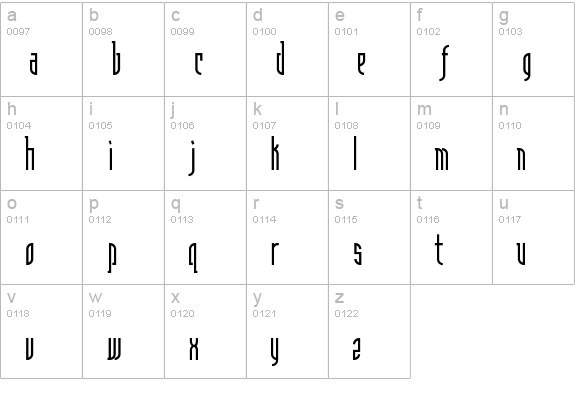
DeccoModern-Normal is the standard, neutral variant in the DeccoModern typeface family \xE2\x80\x94 well suited to general body text, paragraphs, and standard typographic work.
DeccoModern-Normal is a sleek and stylish font that exudes a contemporary charm with its clean lines and modern aesthetic. This versatile typeface is perfect for a wide range of design projects, from branding to web design to print materials. Its balanced proportions and smooth curves make it easy on the eyes, ensuring readability across various mediums. What sets DeccoModern-Normal apart is not just its elegant design, but also the fact that it is available for free download at FontsMarket.com. This means that you can use this sophisticated font in your projects without any additional cost, making it a valuable addition to your design toolkit. With DeccoModern-Normal, you can elevate your designs with a touch of modern sophistication, all without breaking the bank. Download it today and see for yourself the impact this font can have on your projects.